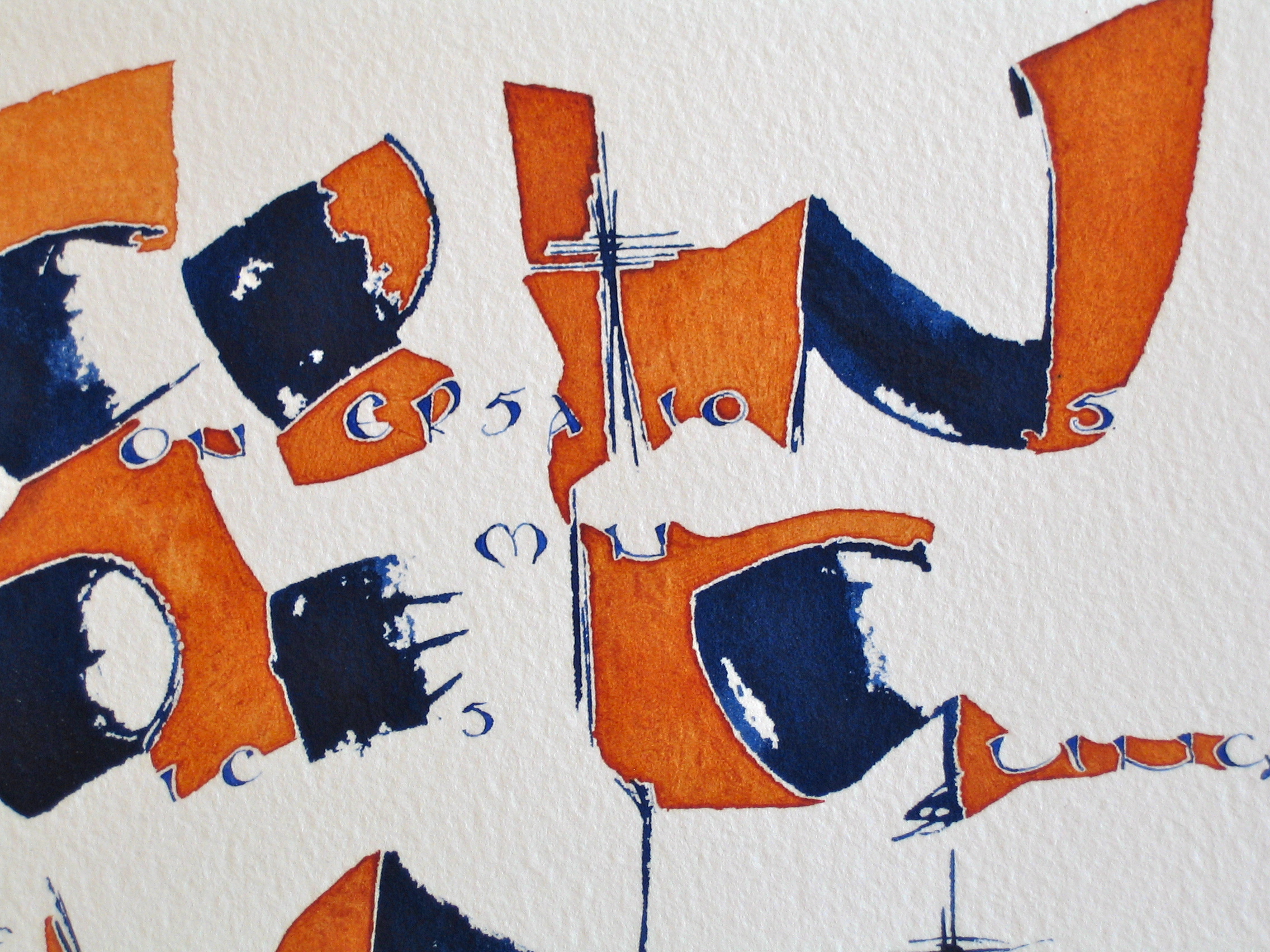
A poem writ from an experience on a bridge…
conversations
voices mingling
reaching out
across a (painted) bridge
opening wind
whispering leaves
The way this particular work is rendered has everything to do with gesture: the control of the tool, expression through colour, shape and unoccupied space – which can be as provocative as that which is occupied. Basically the work is about harmony, the sight and feel of it in our surrounding, our world – the potential of such achievement. That seeing words spoken as much as hearing them has the power to provoke as much response as the text itself.
conversations… 2007
Author, artist: Jacqueline Harris
Cola pen, gouache & watercolour on Arches paper
conversations… is a poem/visual composition of some of my earlier works. This piece was selected for the international exhibition titled Words Images Gestures: Responding to Our World, held at the Guildford Art Center, Guildford, Connecticut, USA in 2007. It was also published in Letter Arts Review • volume 22 number 1.